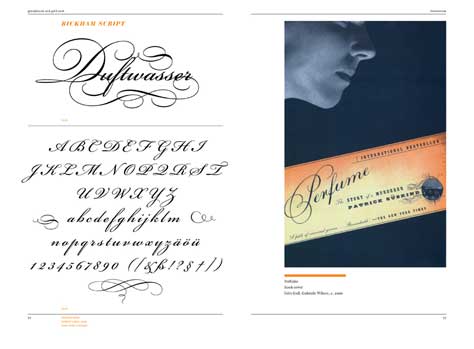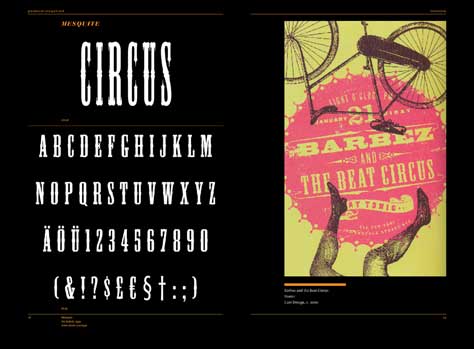
"Retrofonts" Comes with 222 Free Fonts
Remember and re-use the typographic past with this book's free fonts.
Presented in the style of old type-specimen books, Retrofonts features over 360 of the most eye-catching and timeless fonts designed between the middle of the nineteenth and the end of the twentieth centuries. Organized into nine chronological sections with titles like "Fin de Siècle and Simplicissimus" and "Walkman, Rubik's Cube and Gen X," the fonts catalogued in this impressive volumeprovide a glimpse of the historical, political and cultural context out of which they sprang.
But Retrofonts gives readers more than fonts on the page - the book includes a CD with 222 copyright-free fonts, making it an invaluable tool for graphic designers, typographers and art directors. The professional-quality fonts given away in Retrofonts can be used in myriad ways, while also informing and inspiring readers.
Side by side with the type specimens, examples of the fonts in use demonstrate the aesthetic sensibilities of bygone eras. From 1950s brush scripts to the collage-inspired letterforms of the 1980s and beyond, the fonts author Gregor Stawinski examines exemplify decade-defining design trends, helping today's readers refine their understanding of what was in style, when.
As Stawinski notes, "Typographical time travel succeeds when, as in this book, the most popular typographical trends of different periods in high, low and mass culture are brought together in a vivid presentation. Only then will a review of the exciting history of typography in the nineteenth and twentieth centuries provide thrilling discoveries, forge informative connections or simply entertain."